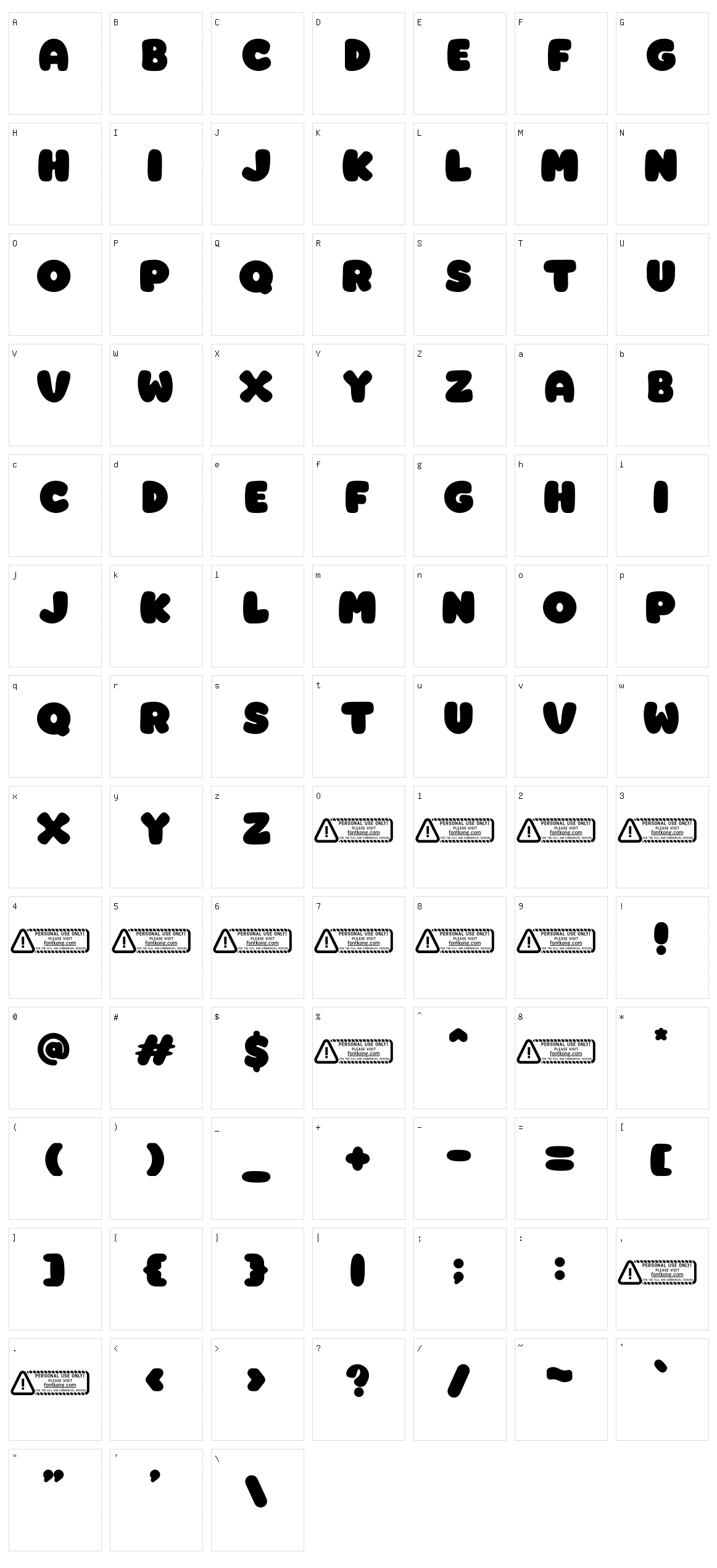
The free font Cheese is carefully designed by Kong Font, showcasing a thoughtful balance of creativity and usability and falls under the Cartoon font style. When you download the ZIP file, it contains only 35.2 KB of font files, making it lightweight and quick to download. Please review the license details below to understand permitted usage and distribution rights. If license information is not available, we recommend using this font for personal projects only or contacting the author directly for commercial usage permissions.